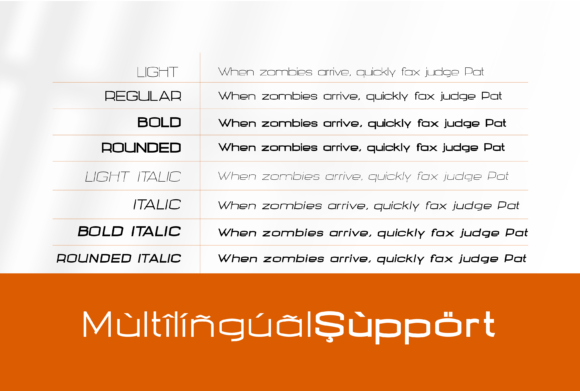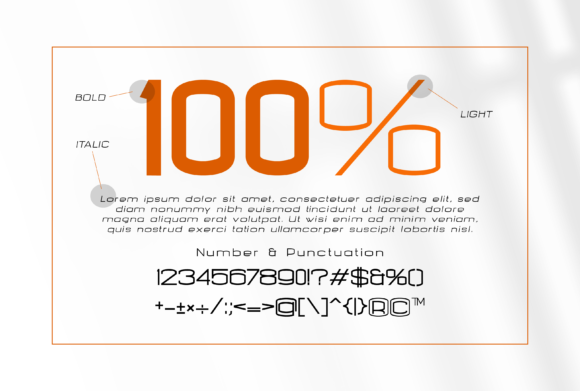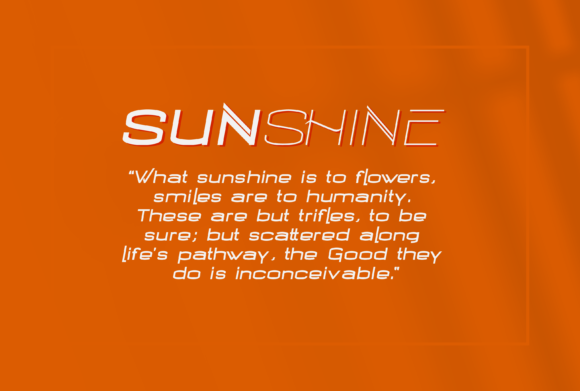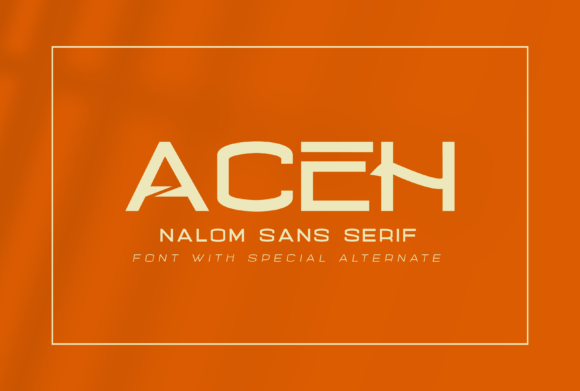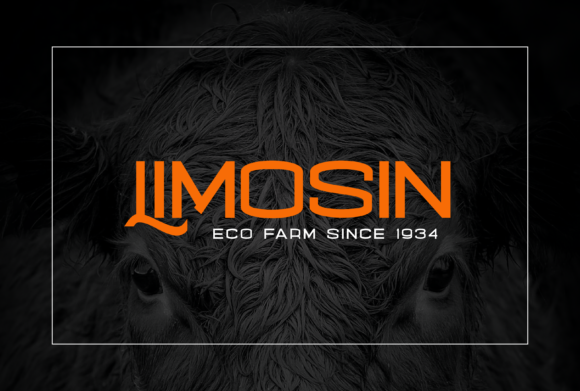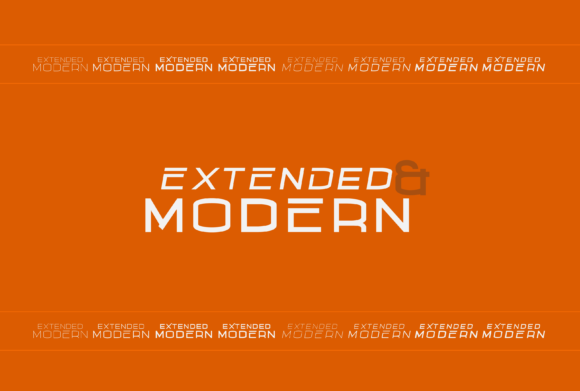
Introduction to Nalom Font
Have you ever been stuck in a creative rut, staring at a blank canvas, desperately searching for that one element to bring your design to life? It’s a feeling many designers know all too well. But what if I told you that the perfect solution lies in the simplest of things – a beautifully crafted font. Enter the Nalom Font, a minimalist and elegant sans serif font that can breathe new life into even the most mundane projects.
This versatile font is a treasure trove of possibilities, waiting to be unleashed on your next creative project. With its high-quality design and transparent background, it’s the perfect design resource to elevate your work and make it stand out from the crowd. Whether you’re a seasoned pro or a budding designer, the Nalom Font is an invaluable addition to your toolkit.
Key Features of Nalom Font
- Unique, elegant design suitable for creative projects and modern designs
Honest Review: Nalom Font
I recently came across the Nalom Font, and I was excited to see how it would perform in my creative project. Overall, I’m quite impressed with the quality of this font.
What works well: ✨ The font has a unique and stylish design that’s perfect for adding a touch of elegance to any project. It’s also available for free download, making it a great design resource for those on a budget. Additionally, the font supports a transparent background, which is a big plus for designers who want to achieve a seamless look.
What doesn’t work well: ⚠️ The font family is relatively small, which might be a limitation for larger-scale projects. Also, the font doesn’t support as many languages as I would have liked.
Overall, I’m happy with my experience with the Nalom Font. It’s a great addition to my design arsenal, and I would definitely recommend it to fellow designers who are looking for a high-quality, free font.
In terms of its application, I’ve used the Nalom Font for a variety of creative projects, including logos, brochures, and business cards. Its versatility and ease of use make it a great choice for designers who want to add some flair to their work.
- Unique and stylish design
- Supports transparent background
- Great for logos, brochures, and business cards
Getting the Most Out of Nalom Font
For the best results, use Nalom Font in a creative project that showcases its unique features. Experiment with different font sizes, colors, and combinations to achieve a high-quality design. You can also use the font in a free download project to share with others.
Nalom Font is perfect for various design projects, including business cards, brochures, and social media graphics. Its unique design makes it ideal for creative projects that require a high-quality design resource.